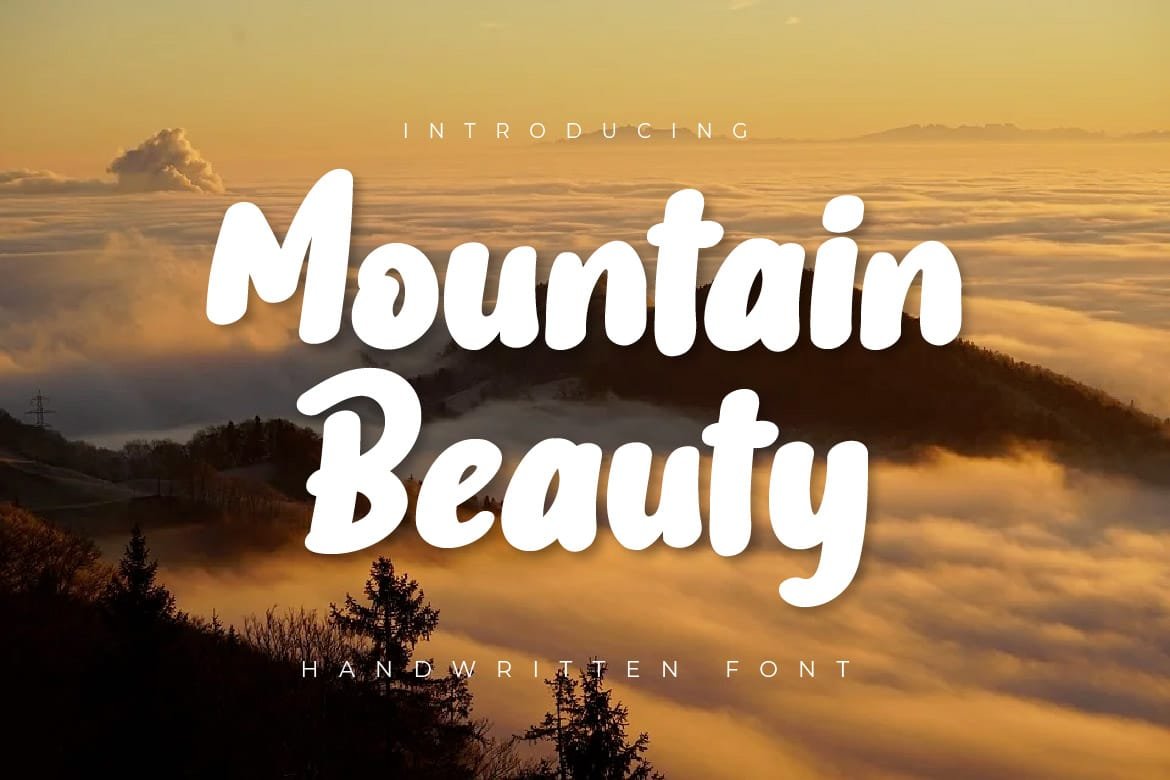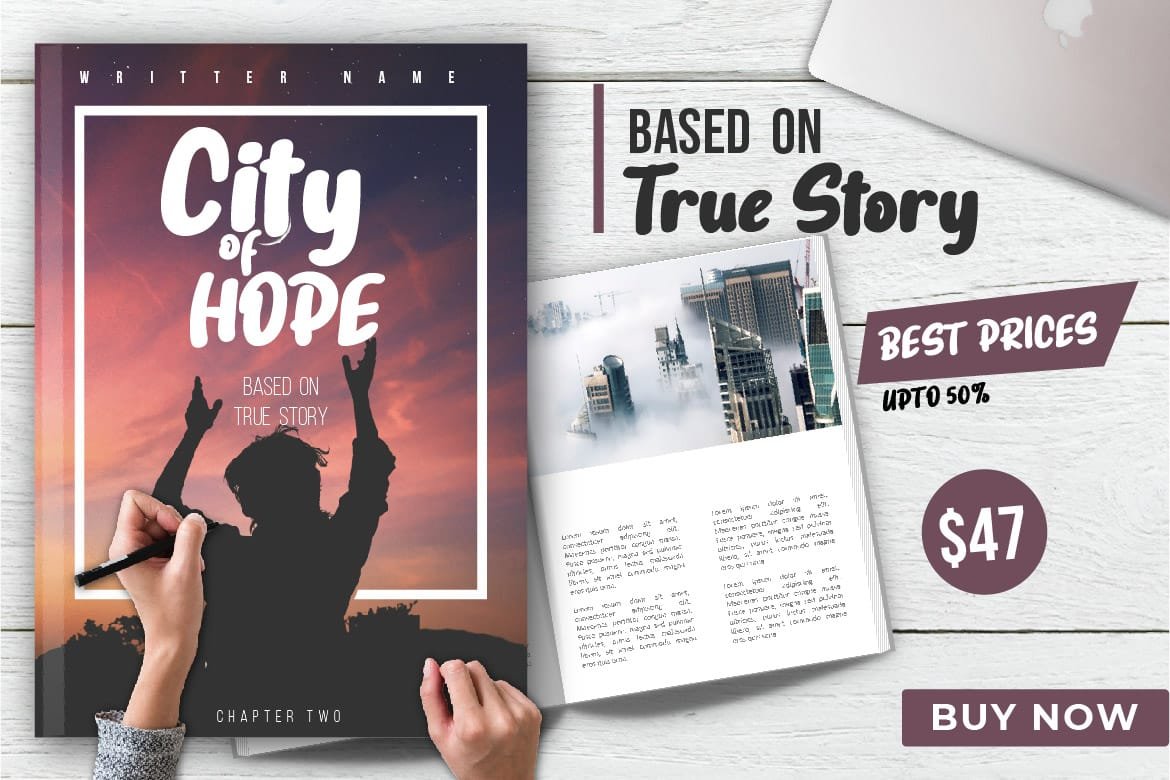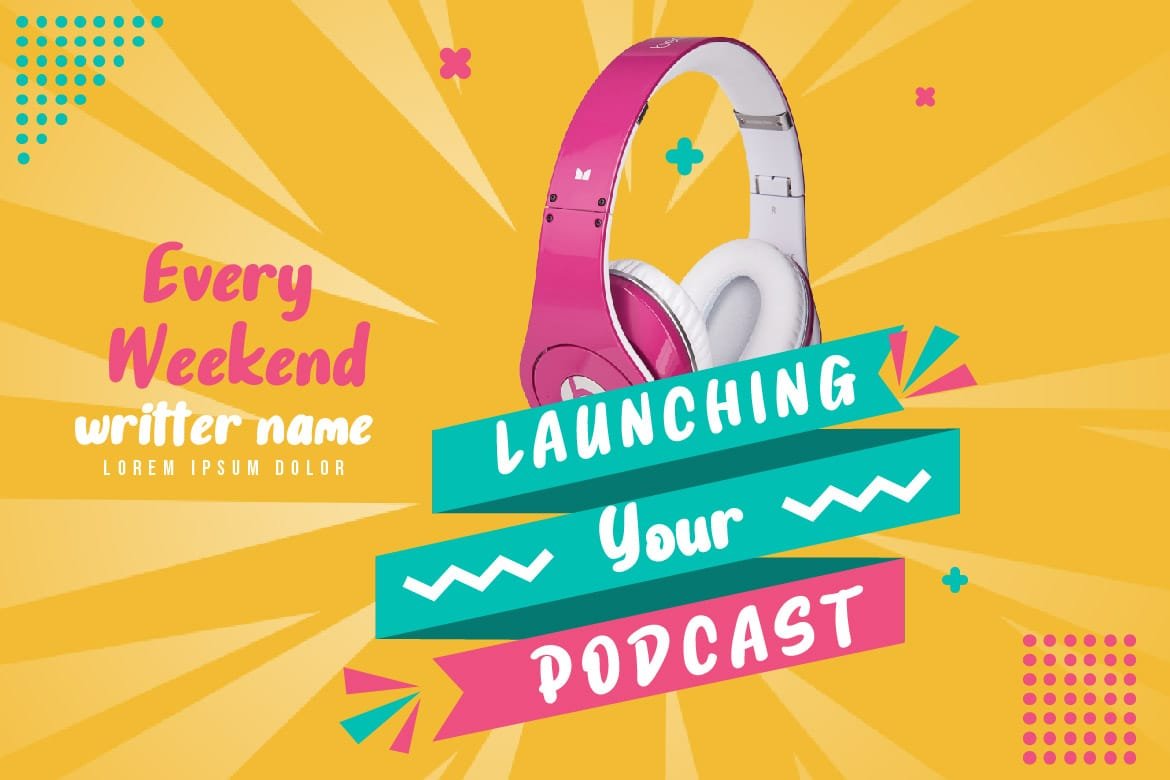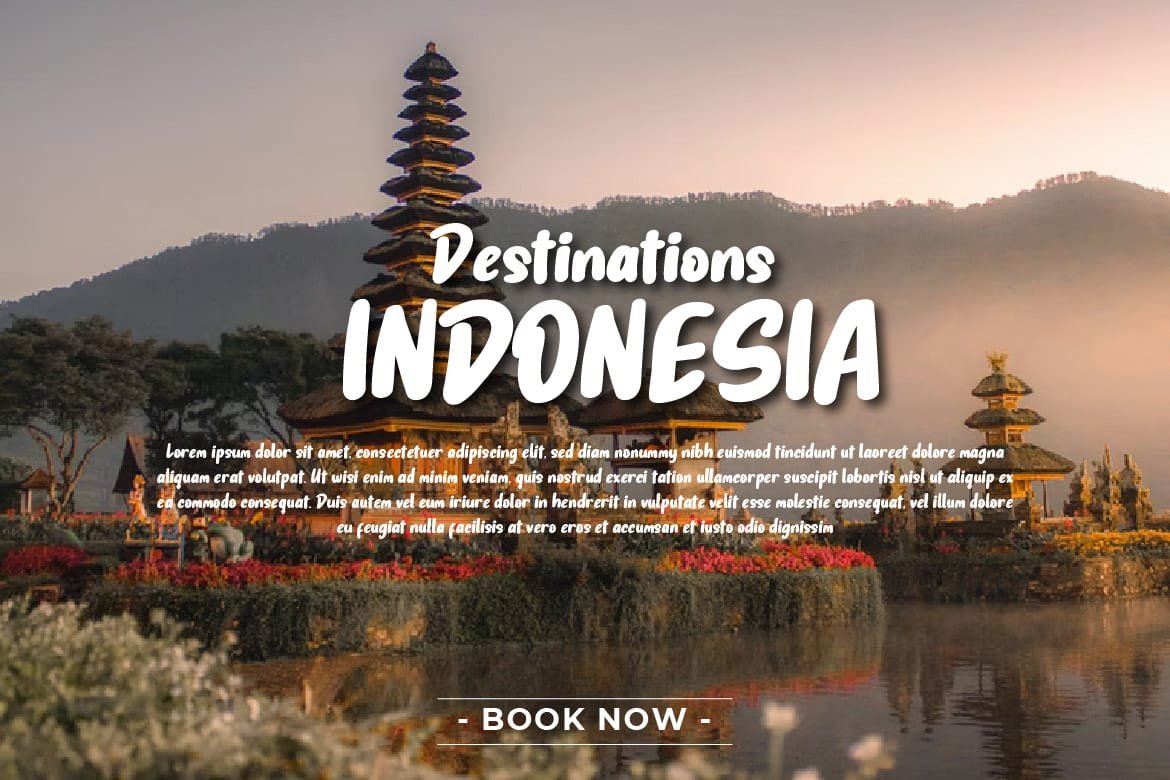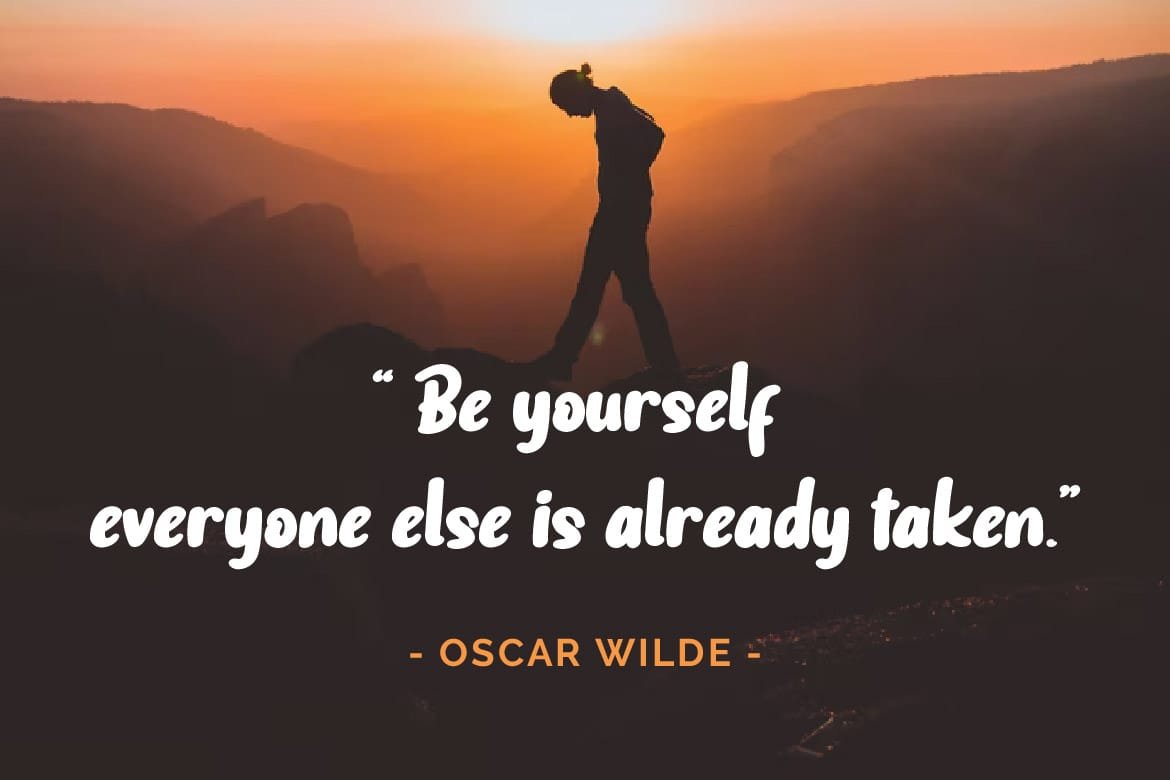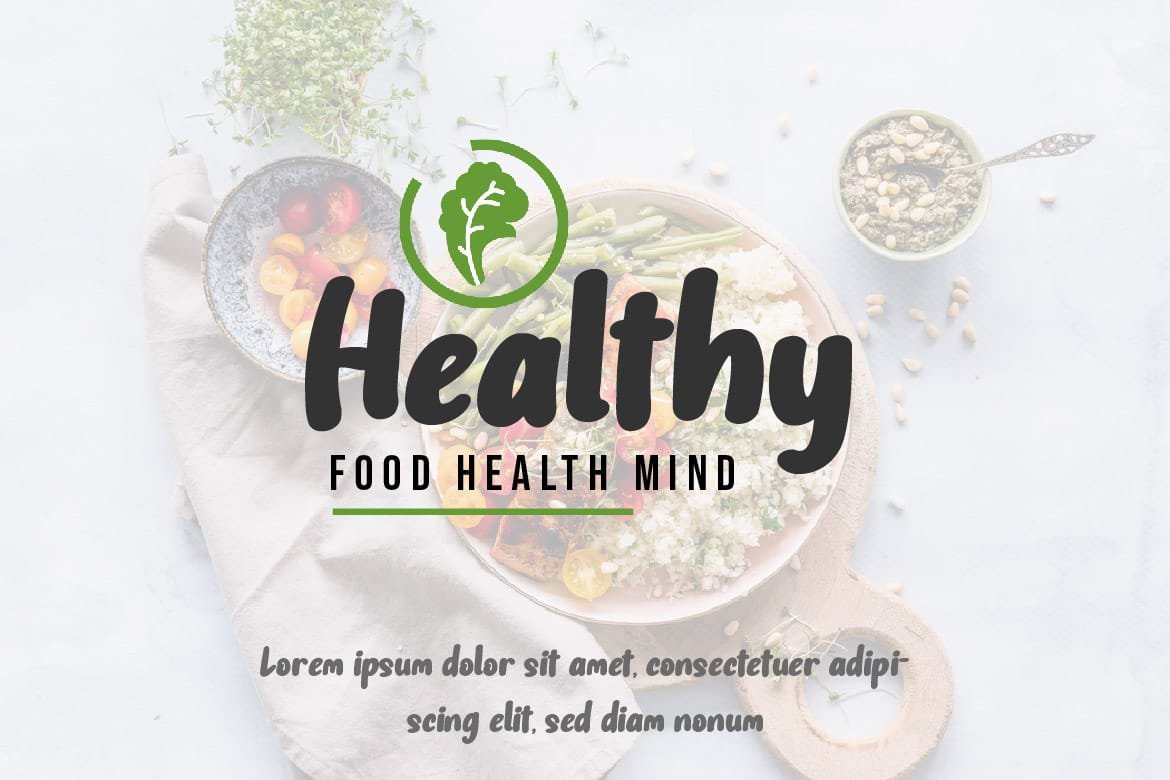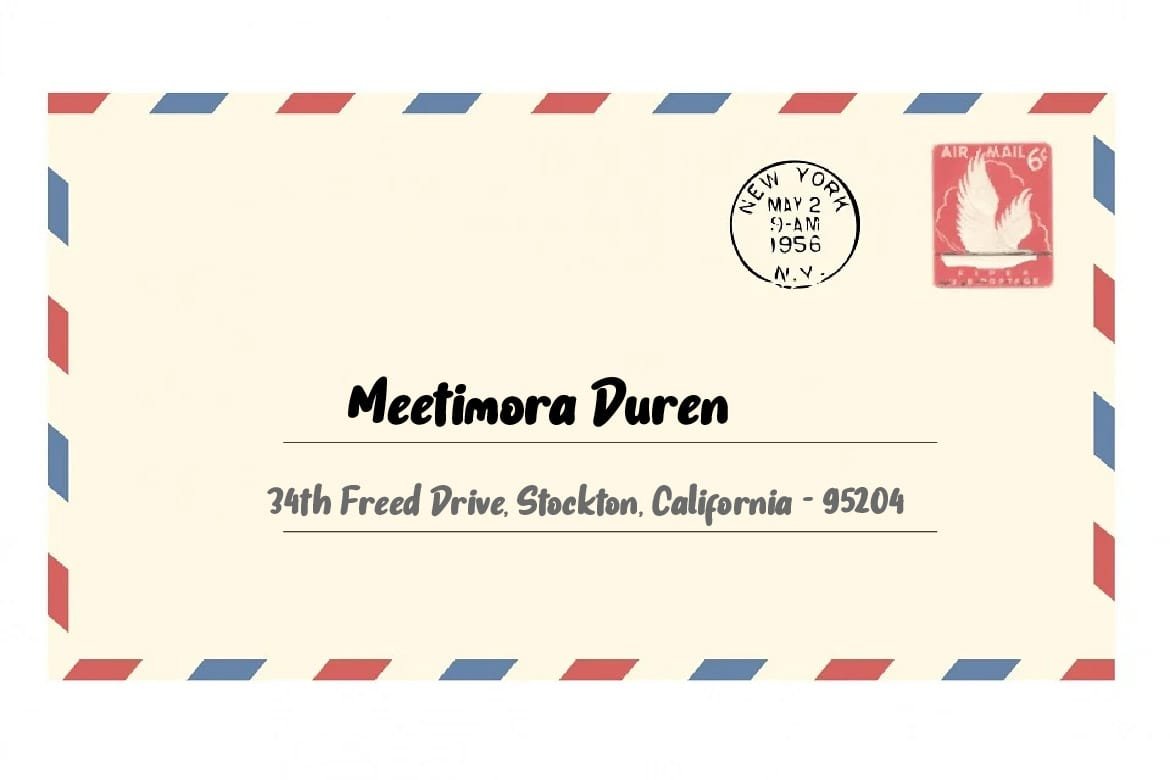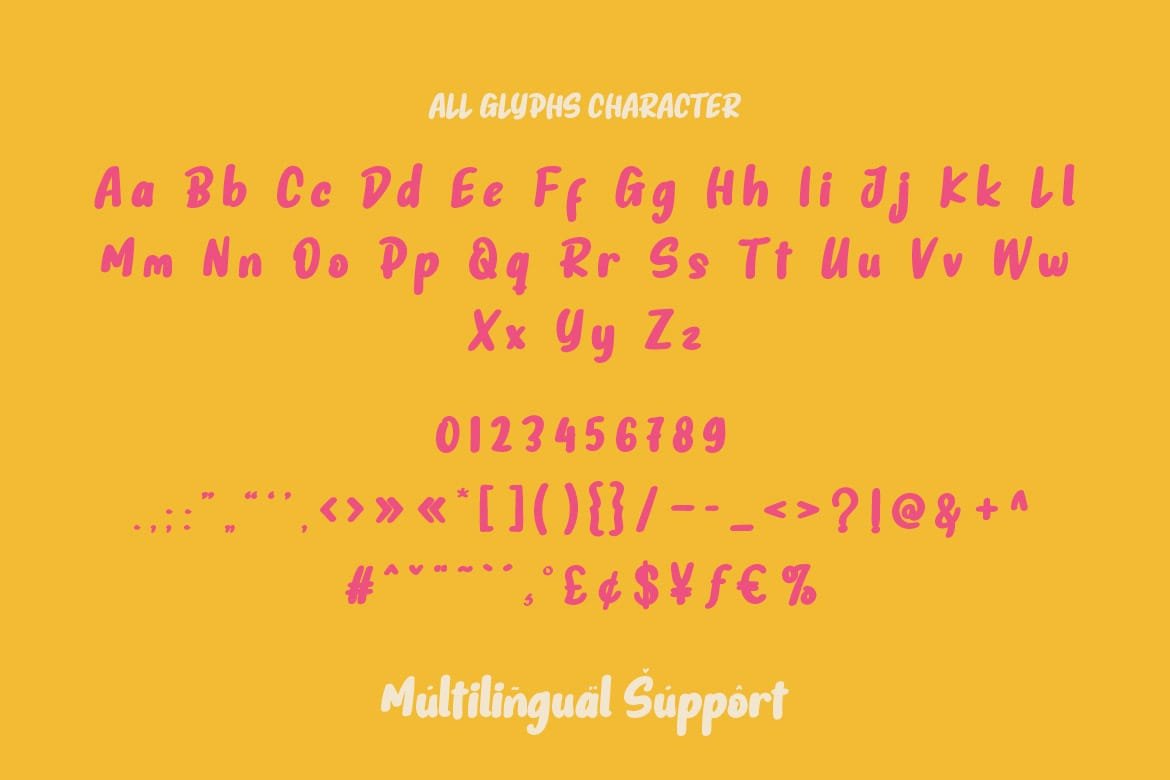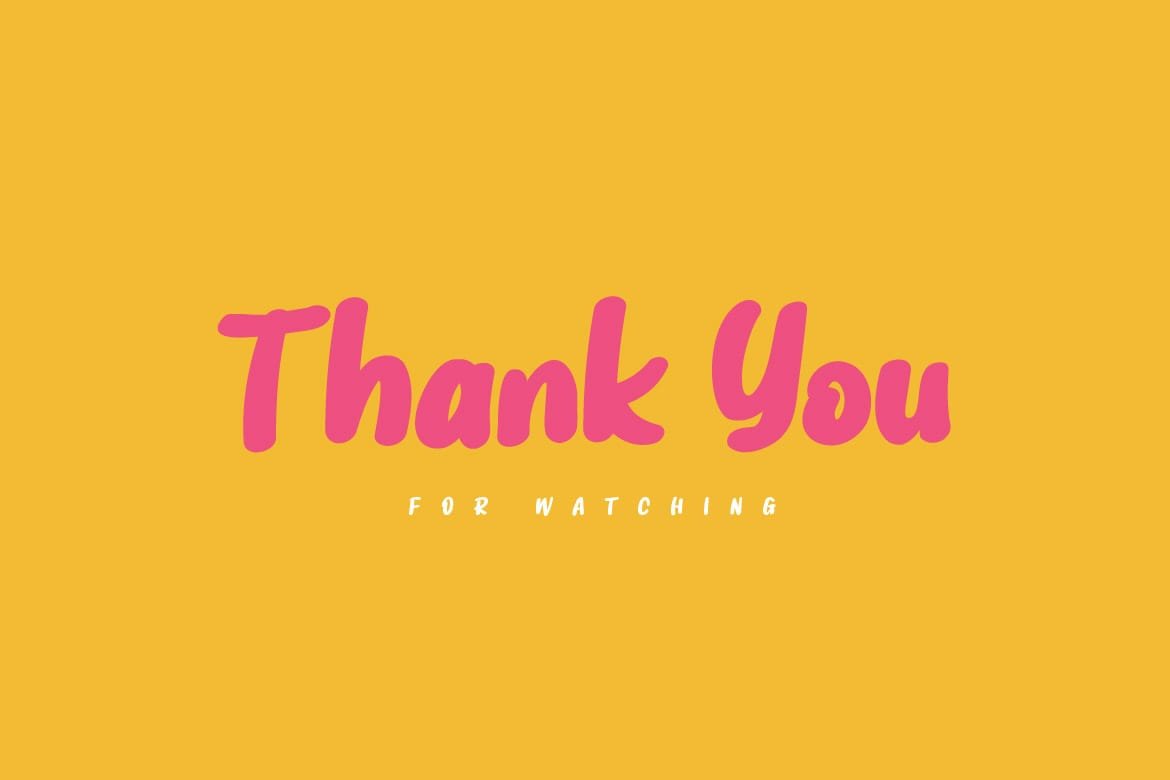
Mountain Beauty is a beautiful and natural handwritten font. Designed with softness and elegance, each letter carries a touch of inspired natural beauty. Ideal for projects requiring a relaxed and unpretentious appearance, such as greeting cards, logos, or digital artwork.